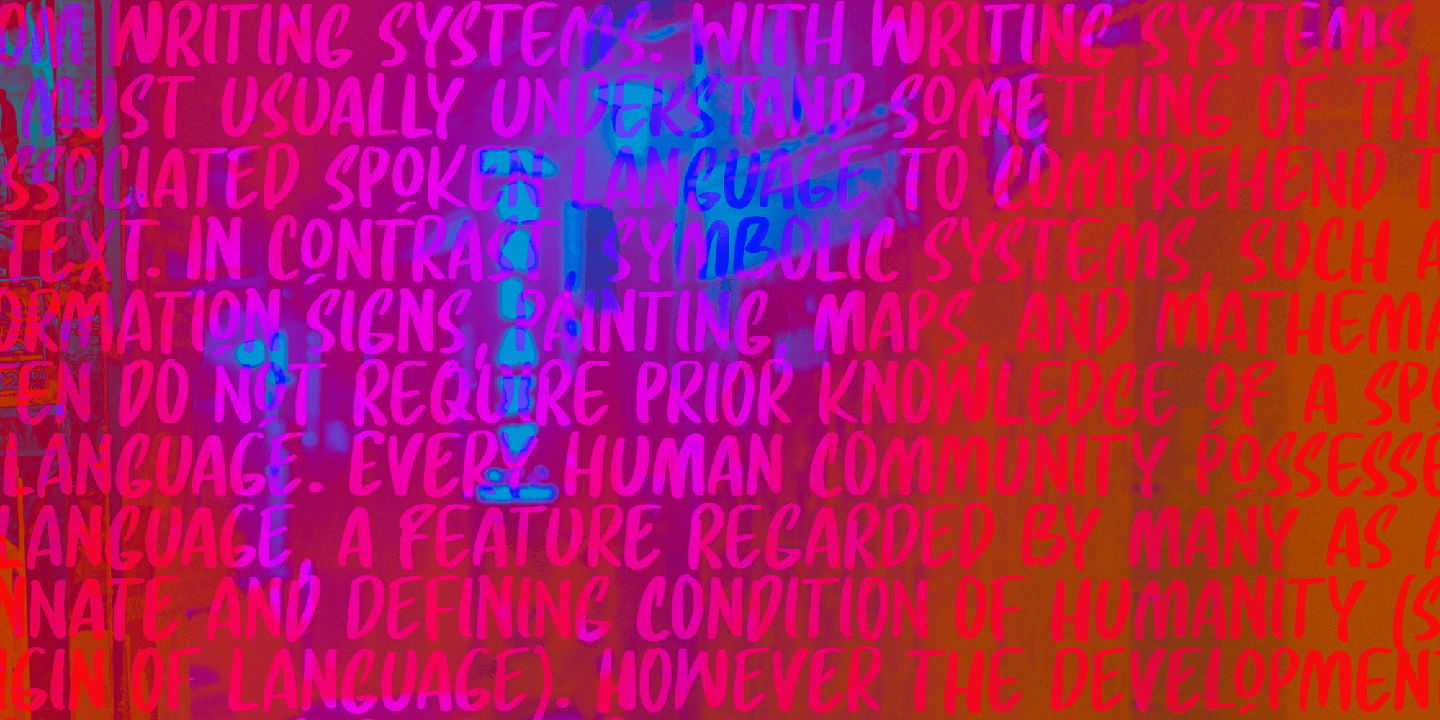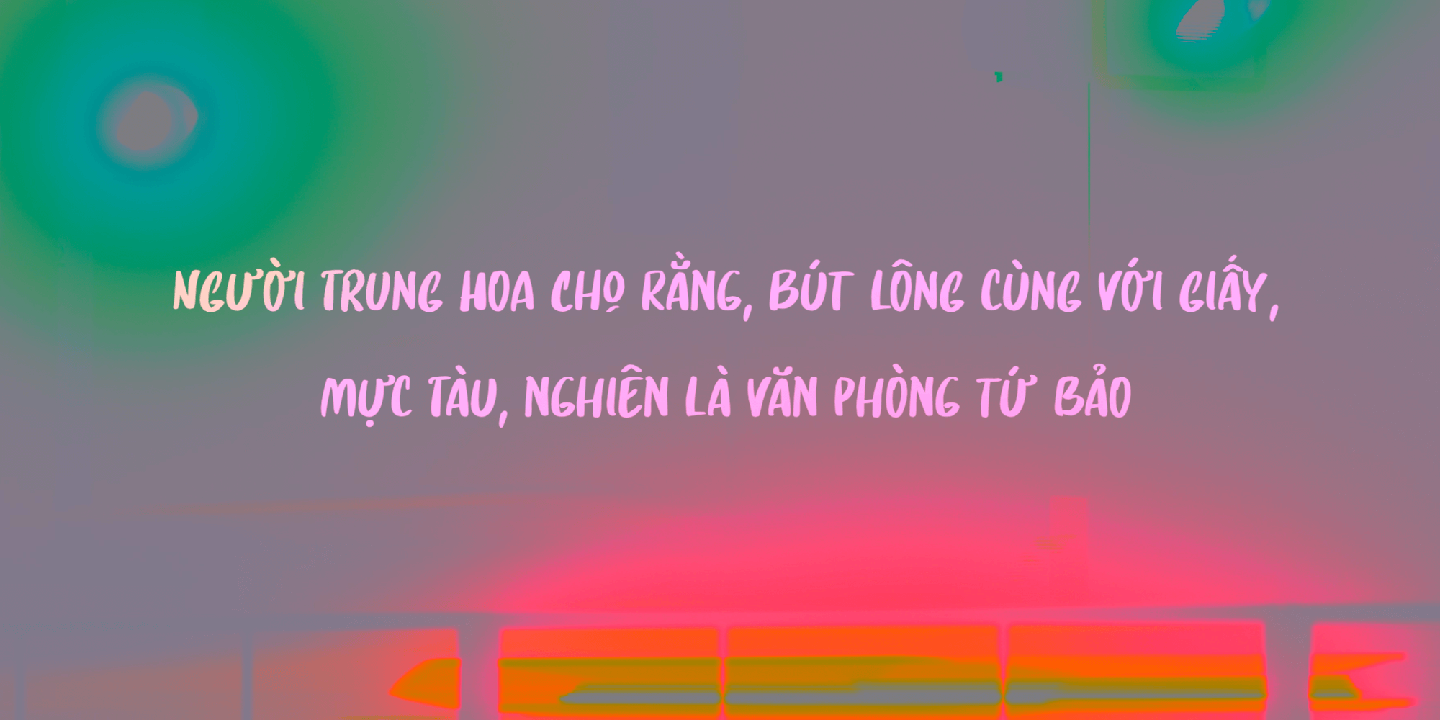
About Daft Script
I really like creating script fonts. Why, I hear you say? Well, creating script fonts lets me be me. I am not trying to create classy, connected fonts for you to write love letters with: there are already too many of those available and quite frankly,…